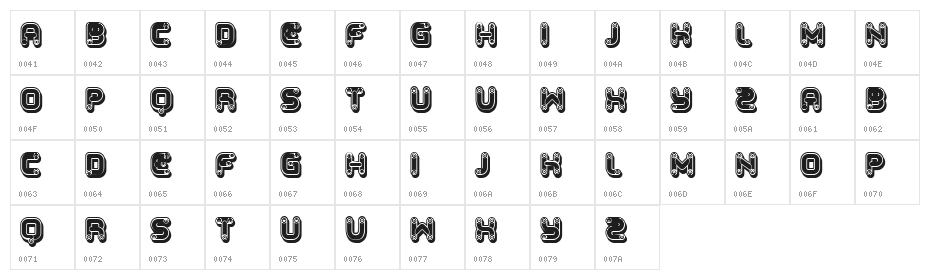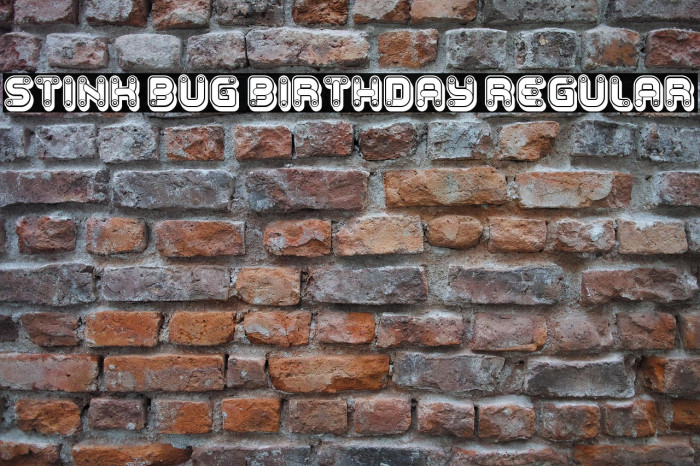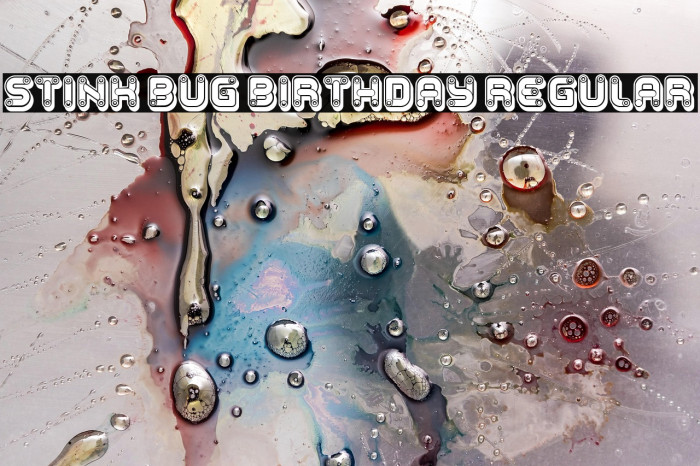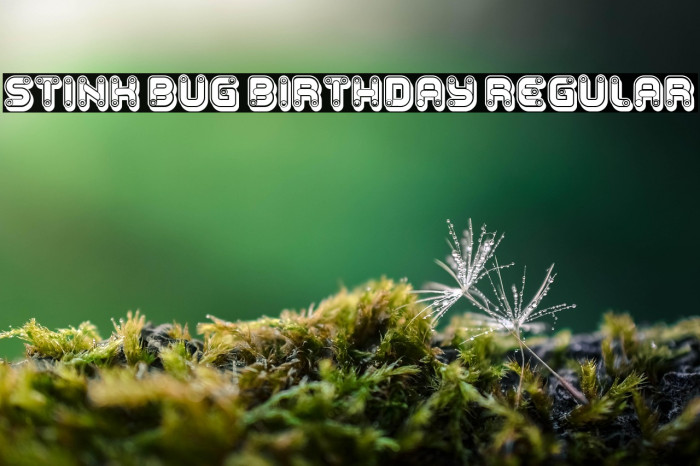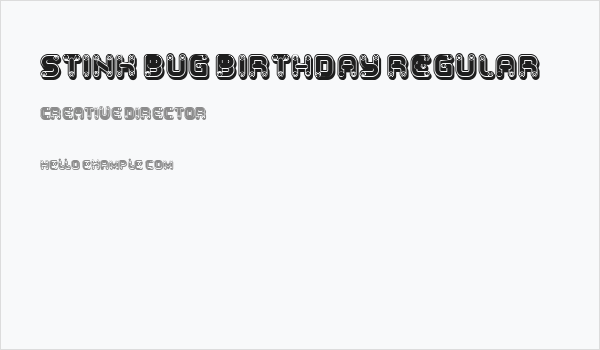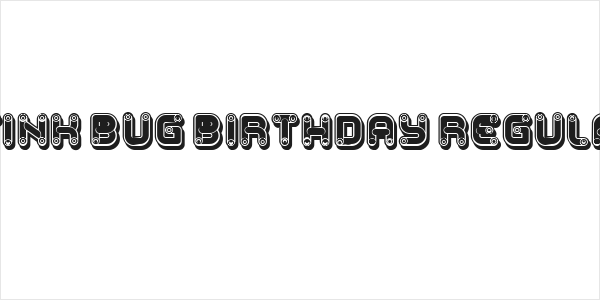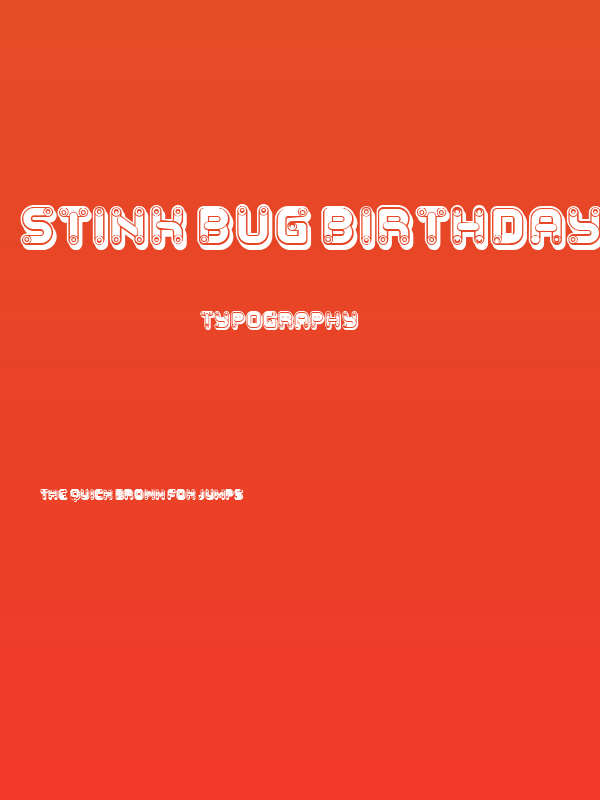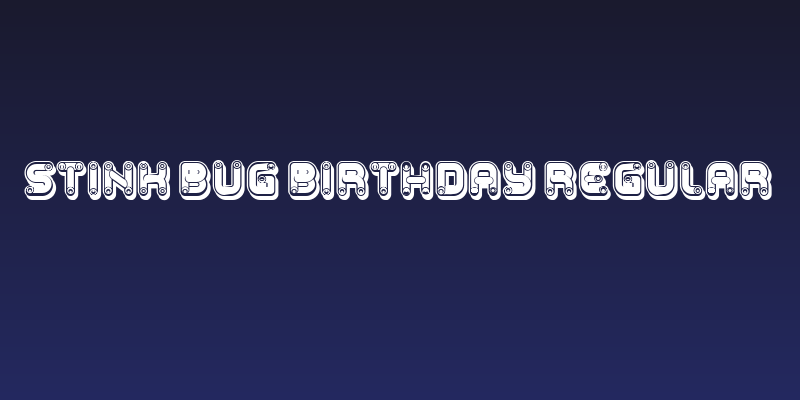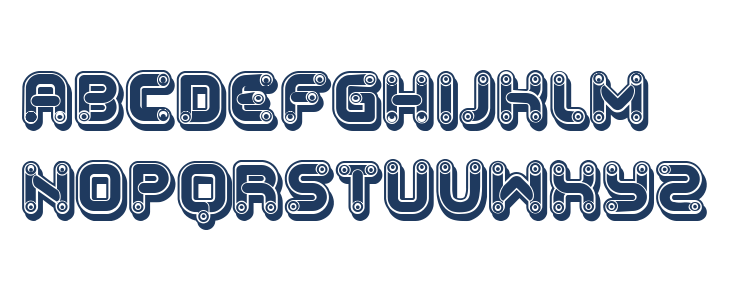
Stink Bug Birthday Regular Font
This font features a playful and bold design with a mechanical, gear-like aesthetic. Each character is outlined with a thick border, giving it a three-dimensional appearance. The interior of the letters is detailed with circular and linear elements that resemble bolts and screws, enhancing its industrial look. The font maintains a consistent weight throughout, with rounded edges that soften its otherwise robust and structured form. The unique style makes it stand out, perfect for projects that require a fun yet edgy vibe.
Proposed ProjectsIdeal for posters, event invitations, children's book covers, or any project needing a fun, industrial touch.